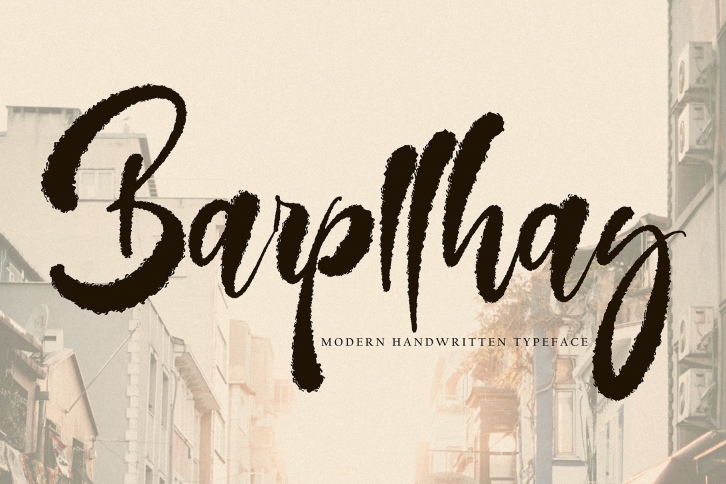
Barpllhay is a beautiful font that was designed by Pineungtype. It's a great choice for designers and creatives who need such a font. It was released on October 31, 2022 and the file size is 4.14 MB. Barpllhay may give a more youthful, expressive and casual look to your project. It is a very beautiful, refined, elegant, and high-quality font.